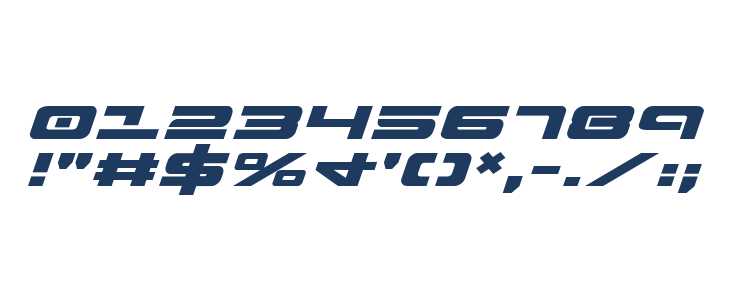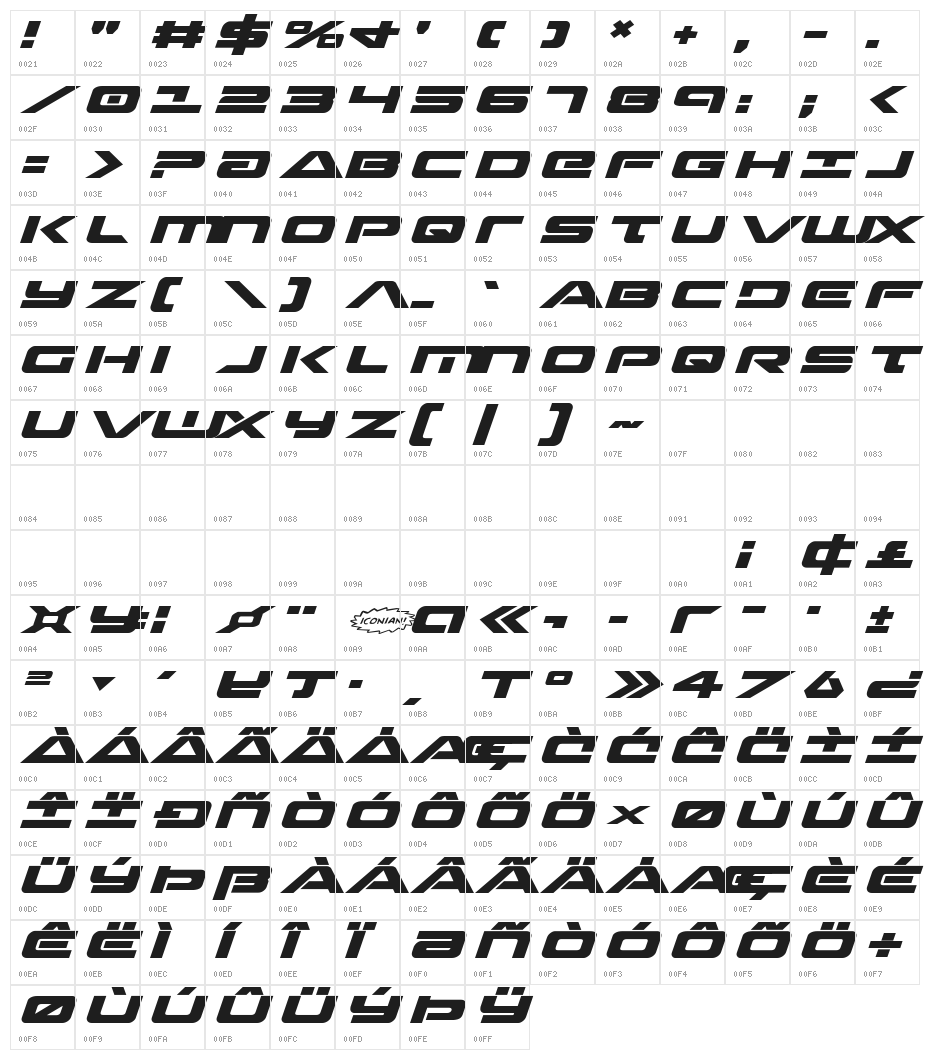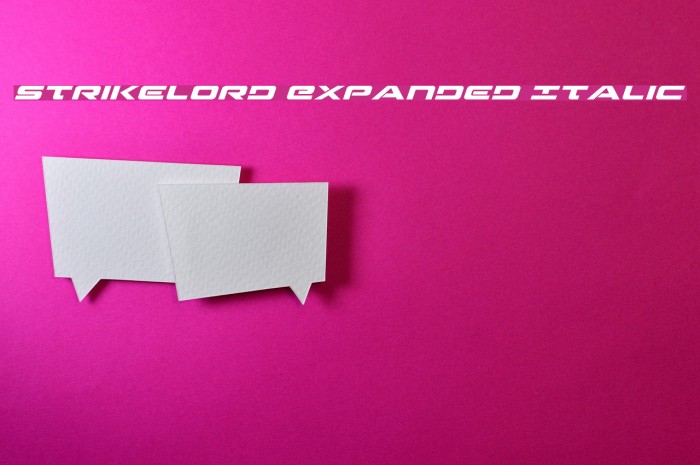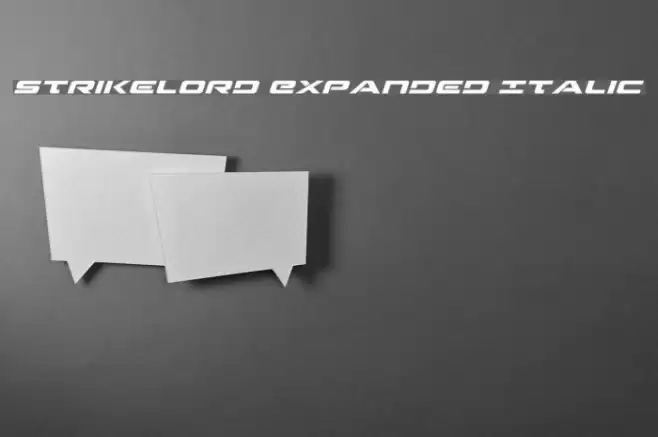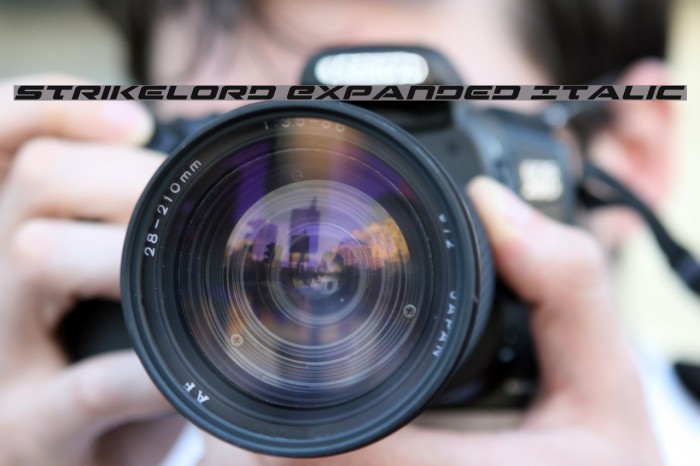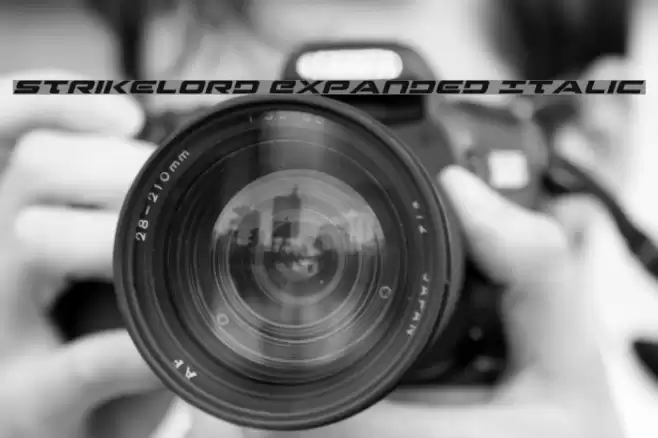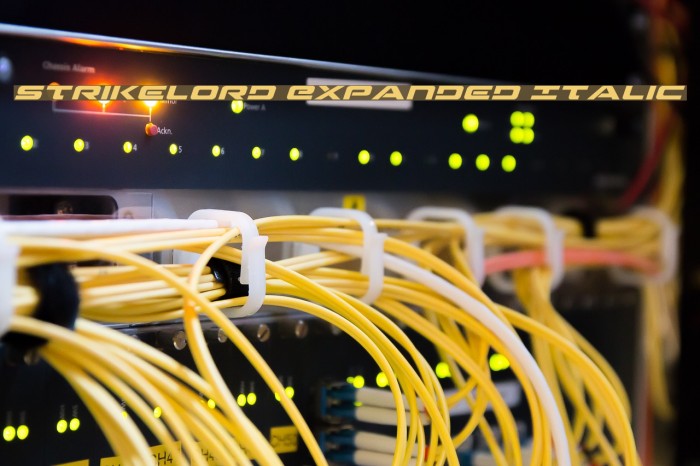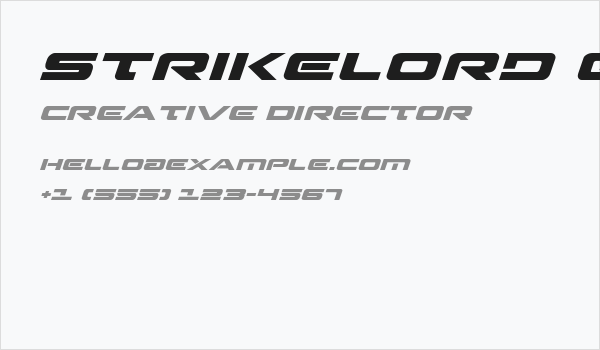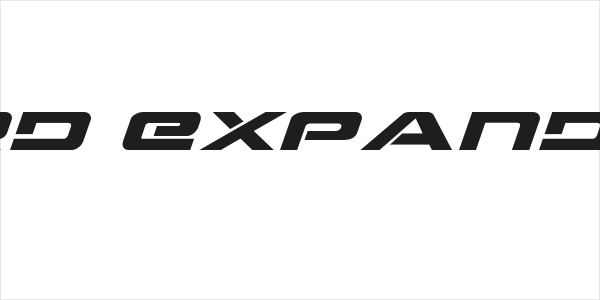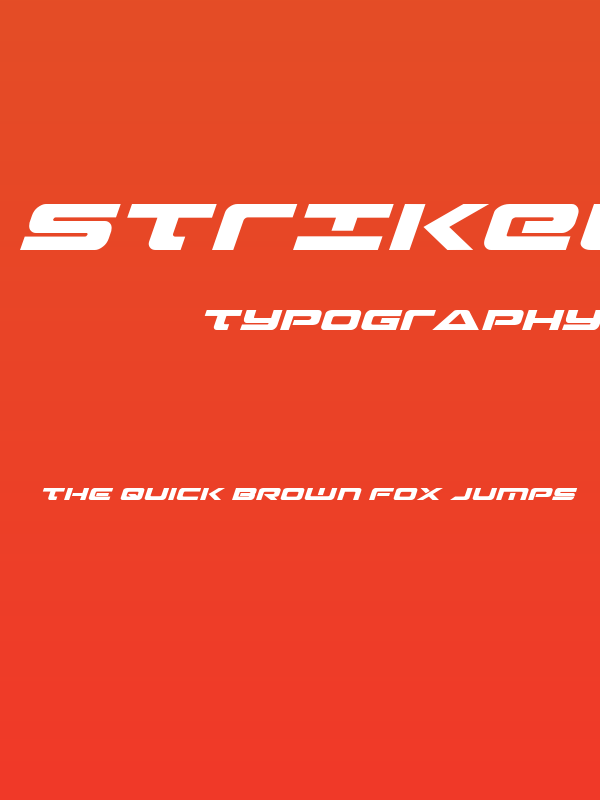
Strikelord Expanded Italic Font
Strikelord Expanded Italic Description
This font features a bold, futuristic design with a strong emphasis on angular lines and geometric shapes. The characters are italicized, giving a sense of motion and speed, which is further enhanced by the expanded width. The uppercase letters are particularly striking, with sharp edges and a dynamic slant. The lowercase letters maintain the same angular aesthetic, ensuring consistency across the typeface. Numbers and special characters are designed to match the bold and modern style, making this font suitable for attention-grabbing headlines and impactful designs.
Overall StyleFuturistic
Proposed ProjectsIdeal for sci-fi themed projects, video game titles, tech branding, and dynamic posters.